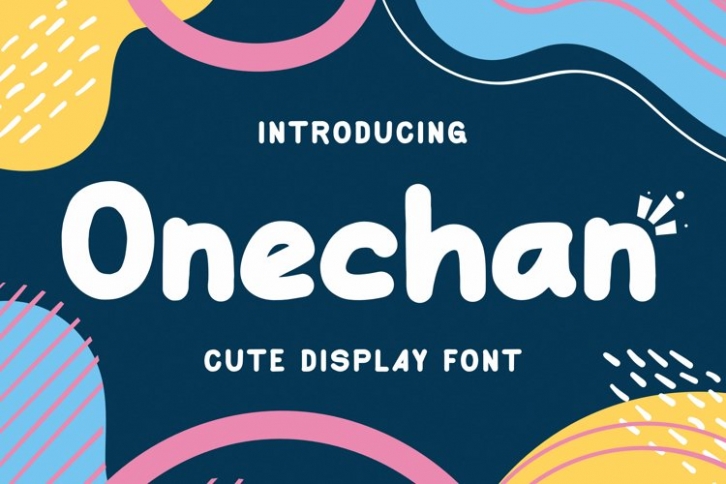
Onechan is a trendy and unique font with an authentic style. It was designed by plusstore and it's a great choice for creative people who need such a font. It was released on June 28, 2021 and the file size is 19.77 MB. Onechan will add an organic vibe to any design idea!